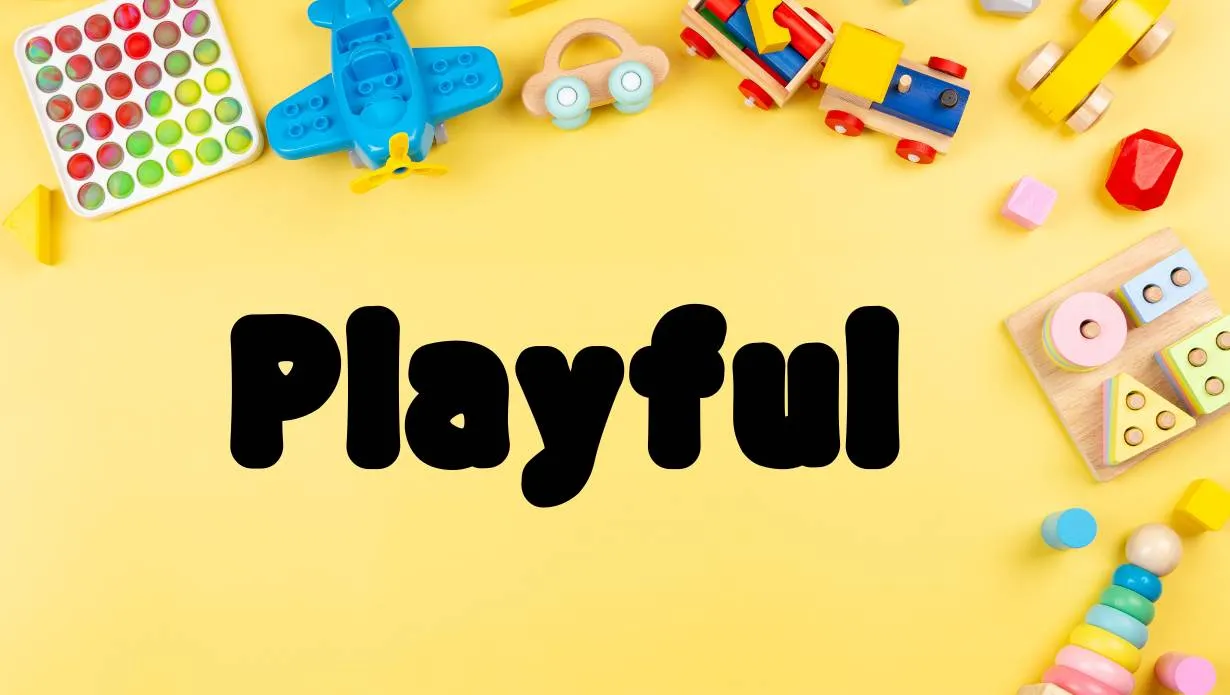
Rusd created this nice and attractive fancy text design named New Kids Font. The typeface family has beautiful styles. This typeface is made up of several unique glyphs. The free version can be found in this text style.
This family is utilized in many layouts due to its wide compatibility with several languages. This typeface is ideal for making all your fun plans it is a lovely choice tool generator that is appropriate for any graphic design.